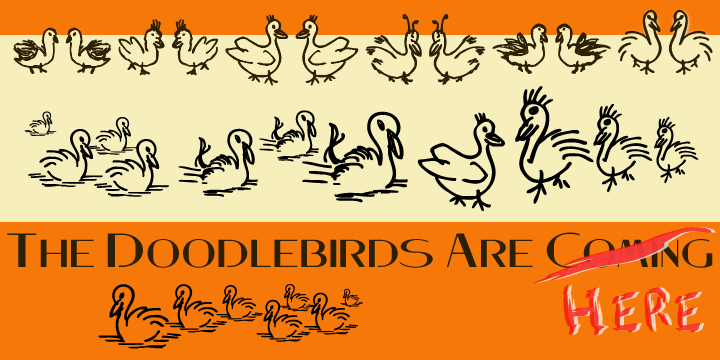
Doodlebirds™
Designed by: Paul James Lloyd
Doodlebirds
Here’s a bit of fun!
Need a dingbat with character? Let these birds strut their hand-drawn way across your work.